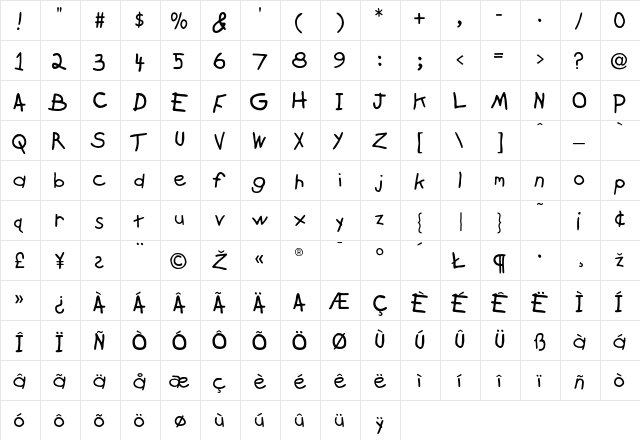
Kidprint Regular
Design Context for Kidprint Typeface
Kidprint is a composed and adaptable typeface that performs quietly and consistently across a wide range of design contexts.